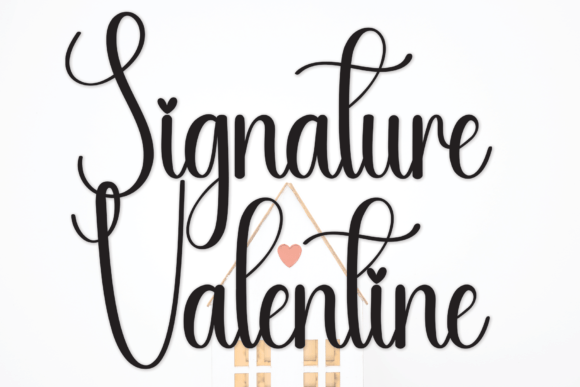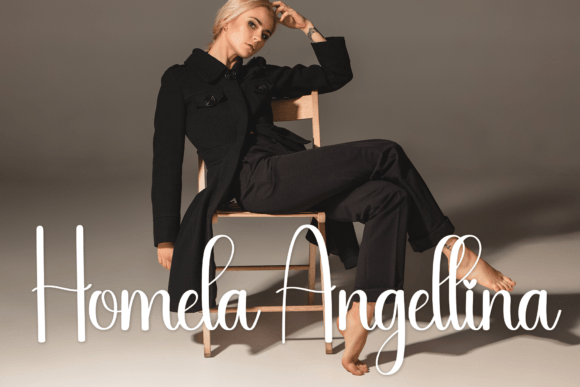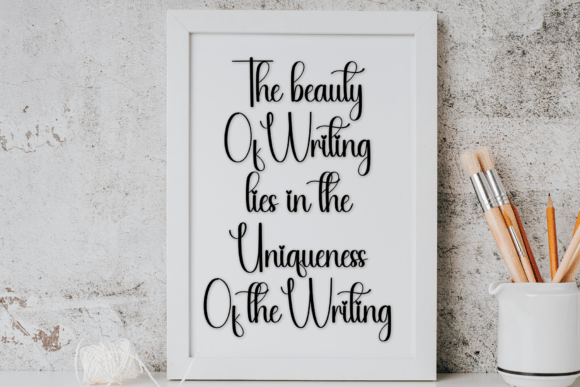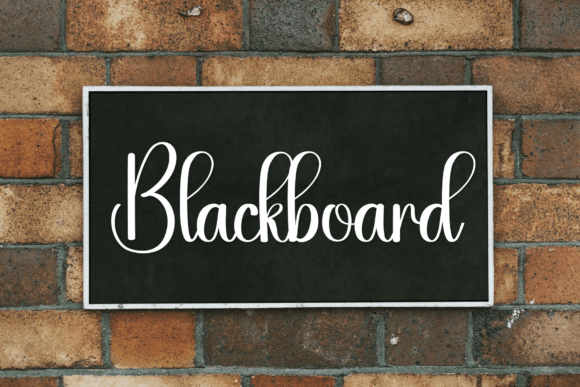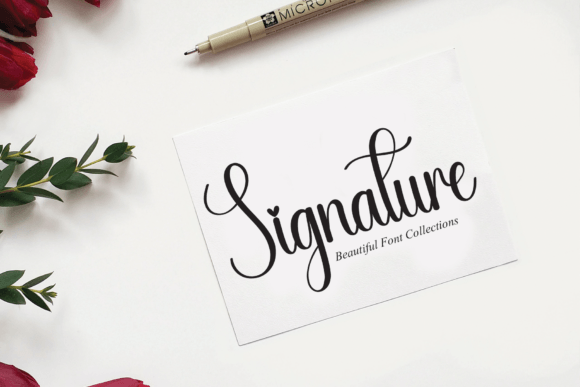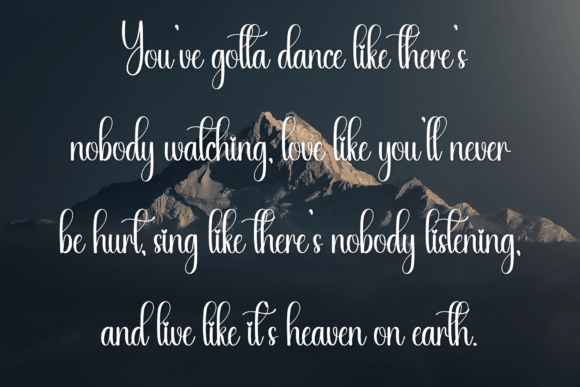
About Signature Valentine
Signature Valentine is a modern and luxurious font that brings romance to the center of attention through the harmonious outline of the words. The font suggests its use for creating invitations, event posters, advertisements, and anything that requires a fancy art form.